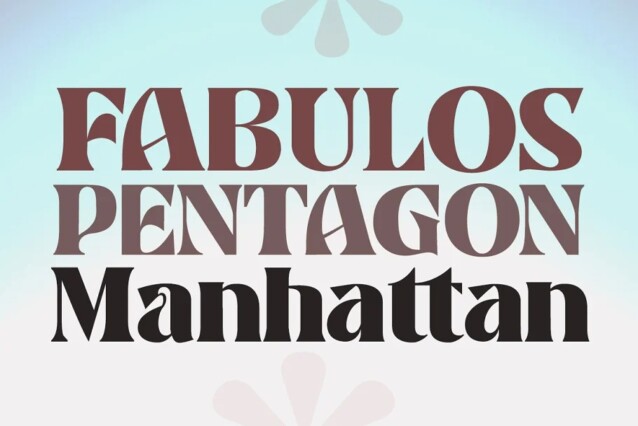
Banner Font is a bold retro font designed by Gatype with a lot of alternate glyphs. This font is perfectly match for groovy retro and vintage design. The overall typeface is strong to bring order and harmony between letters. Best used as Instagram, poster, web design, magazine, logo or product.